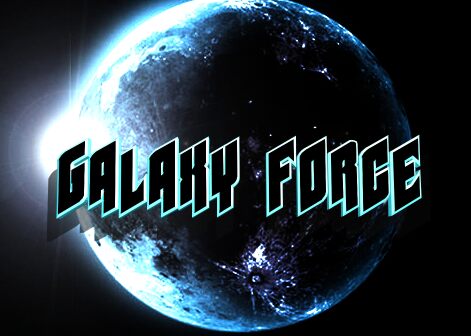
Galaxy Force Extra-Expanded Italic font by Iconian Fonts is a futuristic display font with distinctive features, including its bold appearance and widened lettershape. The angular and aggressive letters of this strong presence font are ideal for those projects where an impactful vibe is needed the most. Its forward-thinking vibe can help establish a powerful statement in your designs.
Use Galaxy Force Extra-Expanded Italic for sports-themed branding, sci-fi movies poster titles, music album covers, video game designs, or tech-oriented advertisements. Exclusively use the free font by itself or pair it with simple text fonts into more complex graphics suitable for websites, mobile apps interfaces and other digital platforms.